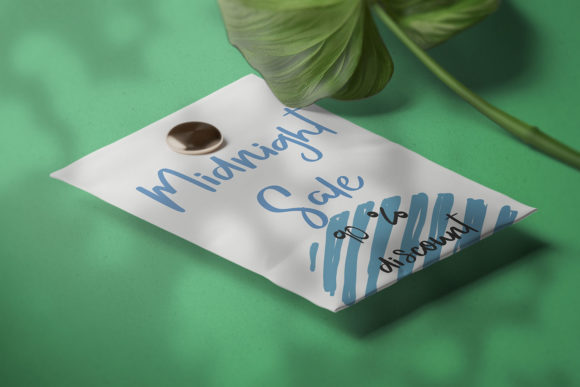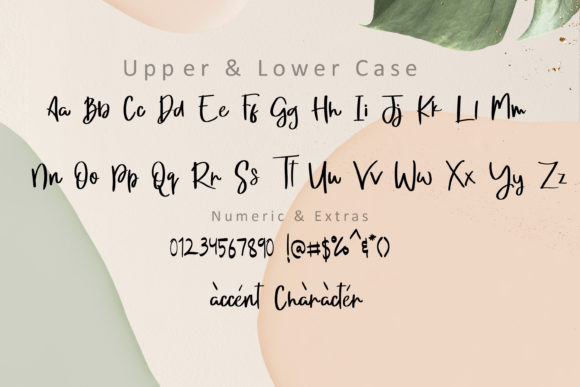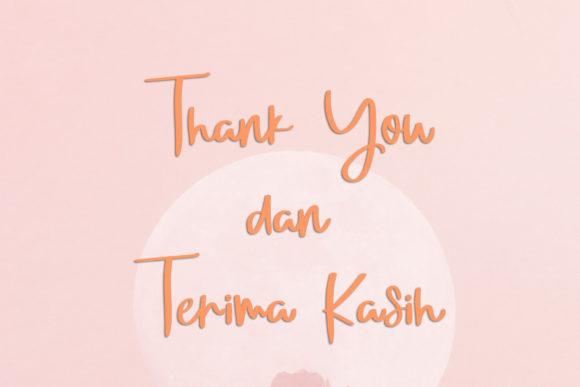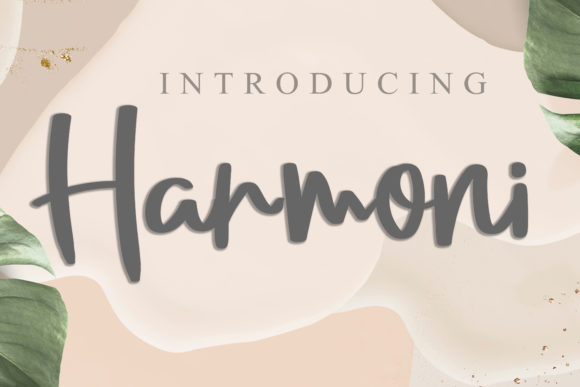
Introducing Harmoni Font: The Cute and Flexible Handwritten Font for Your Creative Projects
Are you tired of using the same old fonts for your designs? Look no further than Harmoni Font, a beautiful and versatile handwritten font that’s perfect for a wide range of creative projects. With its natural and unique style, Harmoni Font is sure to add a touch of personality and whimsy to your designs.
What Makes Harmoni Font So Special?
Harmoni Font is a cute and flexible handwritten font that’s designed to be incredibly versatile. Its natural and unique style makes it incredibly fitting to a large pool of designs, from playful and fun to elegant and sophisticated. Whether you’re working on a branding project, a craft project, or just need a font for your blog or social media graphics, Harmoni Font is the perfect choice.
Endless Variations at Your Fingertips
One of the best things about Harmoni Font is its endless variations. With this font, you can create a wide range of different looks and styles, from bold and playful to delicate and elegant. Experiment with different font sizes, colors, and textures to create a unique look that’s all your own. Whether you’re a designer, crafter, or DIY enthusiast, Harmoni Font is the perfect tool for exploring your creativity.
Harmoni Font is a dream come true for designers and crafters. Its flexibility and versatility make it perfect for a wide range of projects, from logo design and branding to crafting and DIY projects. With Harmoni Font, you can add a personal touch to your designs and create something truly unique and eye-catching.
Use Harmoni Font for:
- Branding and logo design
- Blogging and website design
- Wedding and event planning
- Stationery and card design
Why Choose Harmoni Font?
So why choose Harmoni Font over other fonts? Here are just a few reasons:
- Unique and eye-catching: Harmoni Font has a natural and unique style that’s sure to grab attention.
- Flexible and versatile: Harmoni Font can be used for a wide range of projects and designs.
- Cute and playful: Harmoni Font has a playful and whimsical feel that’s perfect for a wide range of projects.
Get Creative with Harmoni Font
Ready to get creative with Harmoni Font? Here are a few tips for getting started:
- Experiment with different font sizes and colors: Try out different font sizes and colors to create a unique look.
- Add textures and patterns: Add textures and patterns to your designs to give them a more organic feel.
- Mix and match with other fonts: Try pairing Harmoni Font with other fonts to create a unique and eye-catching look.
In conclusion, Harmoni Font is a beautiful and versatile handwritten font that’s perfect for designers, crafters, and DIY enthusiasts. With its natural and unique style, endless variations, and flexibility, Harmoni Font is the perfect tool for adding a personal touch to your designs. So why wait? Download Harmoni Font today and start exploring its endless possibilities!